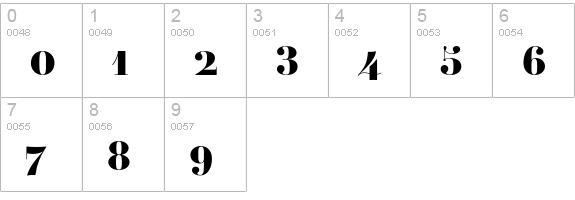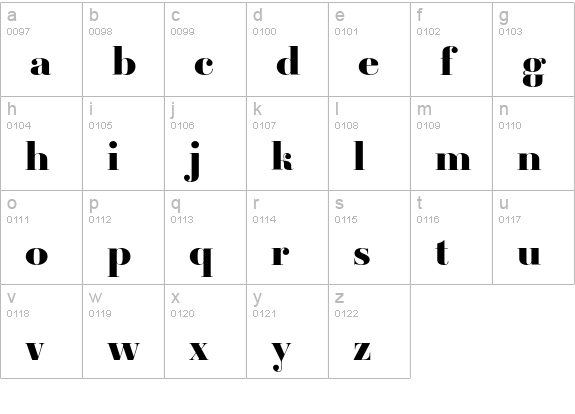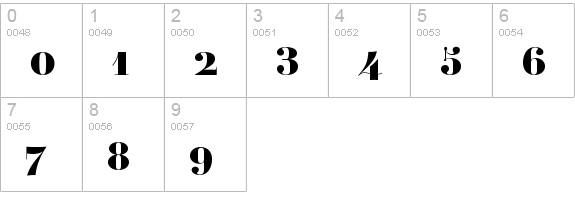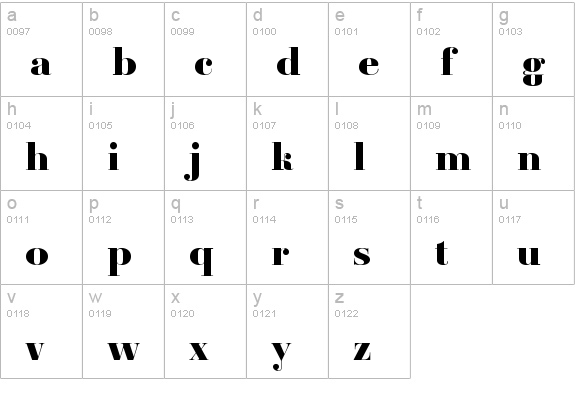
Ambroise Bold is a strong, high-contrast variant in the Ambroise typeface family \xE2\x80\x94 well suited to headlines, attention-grabbing titles, and strong calls-to-action.
Ambroise Bold is a stunning and elegant typeface that exudes sophistication and modernity. With its bold and confident letterforms, this font commands attention and makes a strong visual impact. The clean lines and sharp edges of Ambroise Bold give it a contemporary feel that is perfect for a wide range of design projects. What sets Ambroise Bold apart is not just its striking aesthetics, but also its versatility. This typeface can be used for headlines, titles, logos, and other design elements that require a bold and impactful look. Whether you're designing a sleek branding project or creating eye-catching posters, Ambroise Bold is sure to elevate your designs to the next level. The best part about Ambroise Bold is that it is completely free to download at FontsMarket.com. This means that you can access this high-quality typeface without any cost, making it an excellent choice for designers on a budget. Don't miss out on the opportunity to add Ambroise Bold to your font collection and take your designs to new heights. Download it today and unleash your creativity with this stunning typeface.